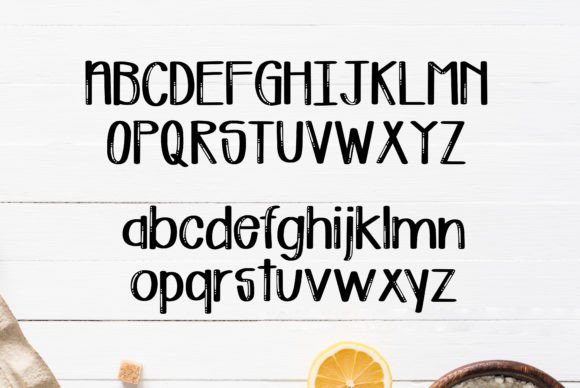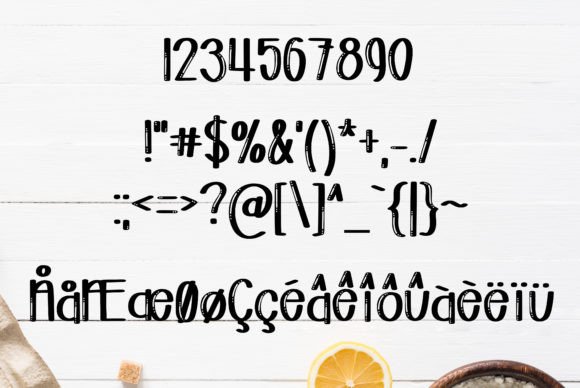
Introduction to Grandma’s Cookies Font
Introducing Grandma’s Cookies font, a delightful and whimsical typeface that brings the warmth and charm of homemade treats to your designs.
With its playful dot details, this font is perfect for baking-related projects, cozy invitations, or anything that needs a sprinkle of sweetness Its hand-crafted, vintage-inspired look ensures a nostalgic yet fun feel, ideal for capturing that old-fashioned kitchen magic.
Key Features of Grandma’s Cookies Font
Why Choose Grandma’s Cookies Font?
Grandma’s Cookies Font offers exceptional quality and versatility, making it a valuable addition to your design toolkit. Whether you’re creating for personal projects or commercial use, Grandma’s Cookies Font delivers professional results.